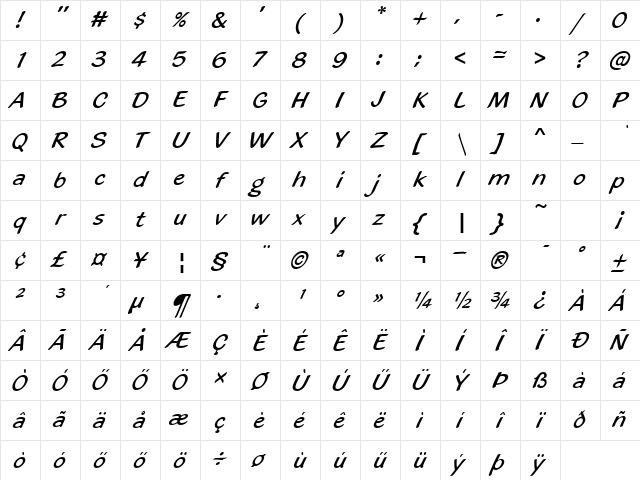
H_BlacklightD Regular Free Font
H_BlacklightD Regular
Complete H_BlacklightD Regular glyph index. Displaying only characters natively supported by H_BlacklightD Regular font.
Design Context for H_BlacklightD
H_BlacklightD is a composed and adaptable typeface that performs quietly and consistently across a wide range of design contexts. Its slender proportions lend an understated elegance to any composition.